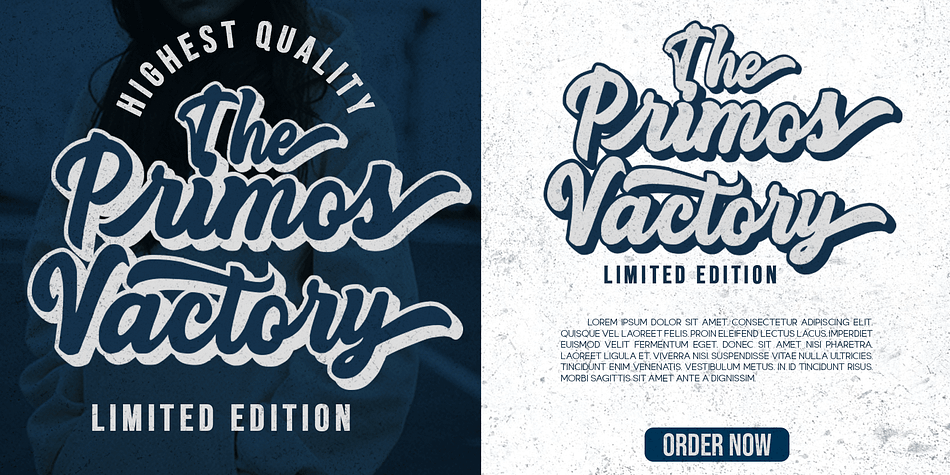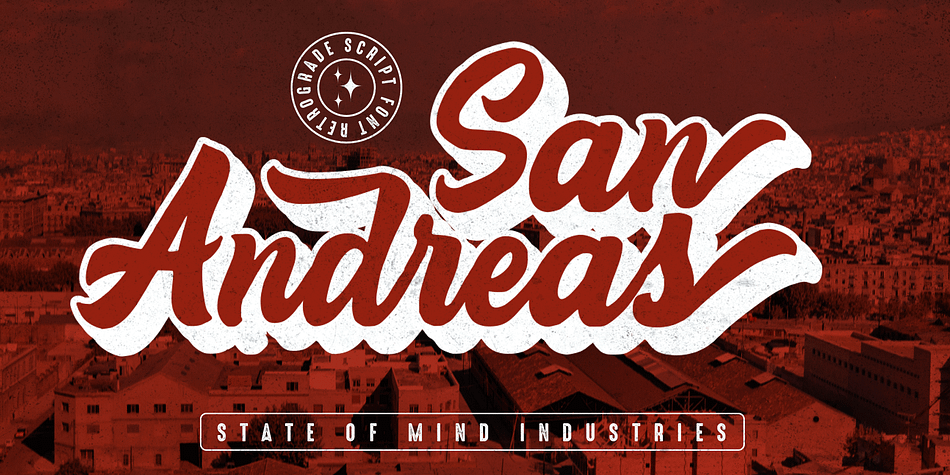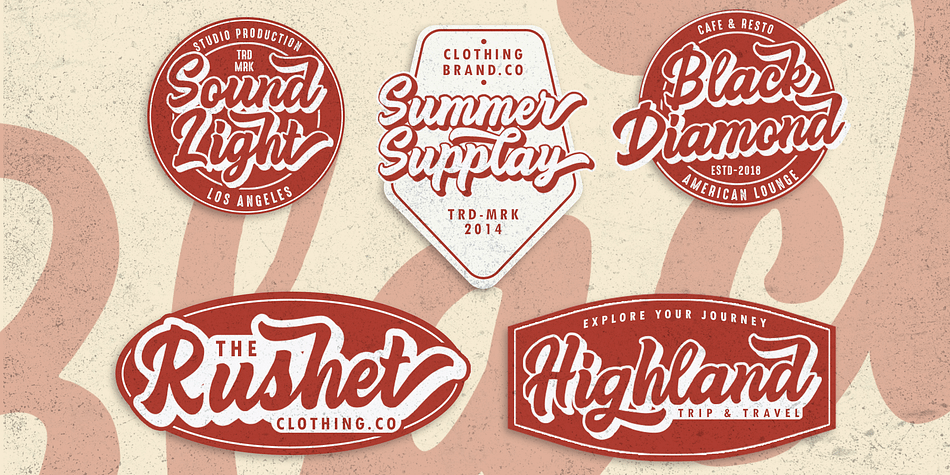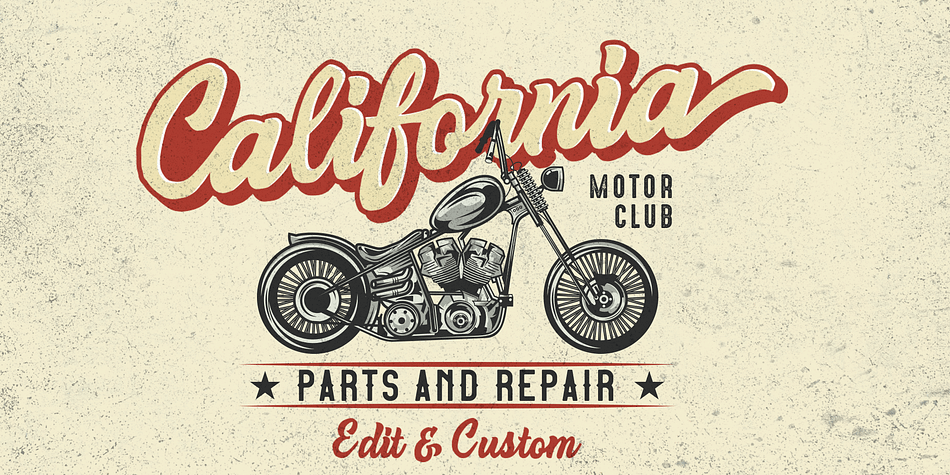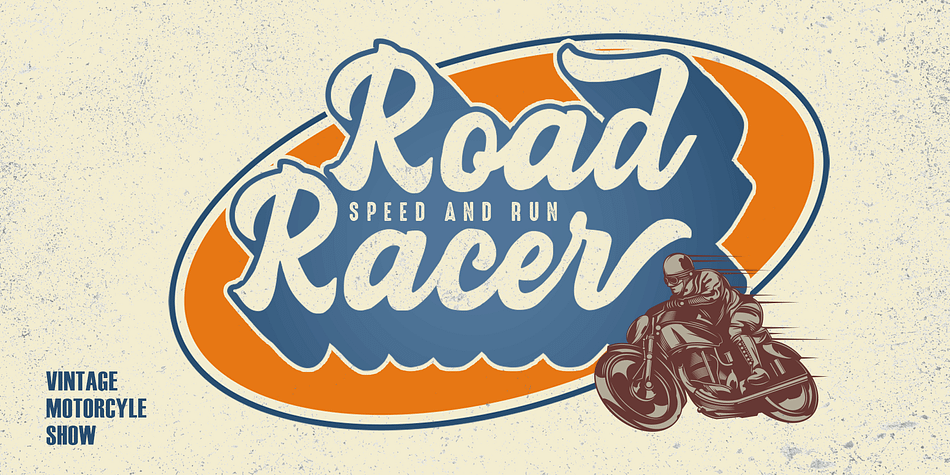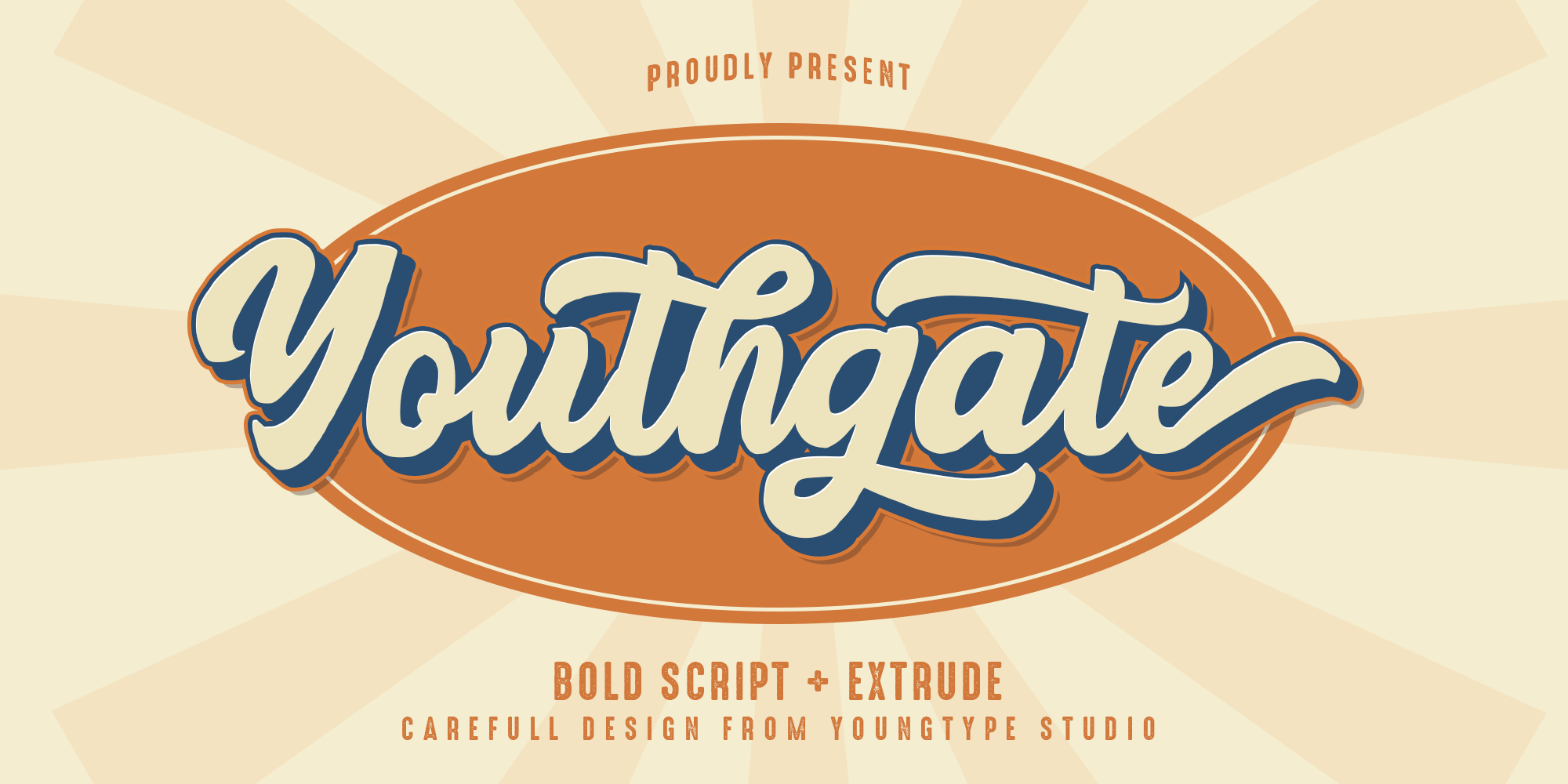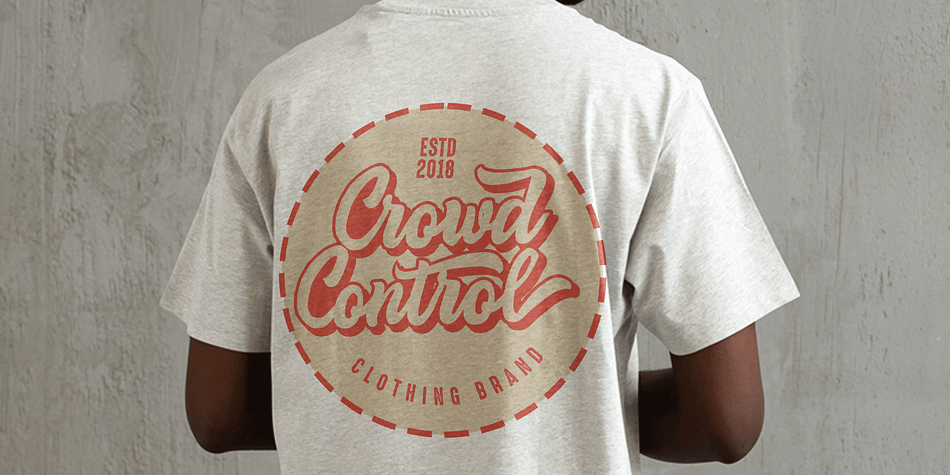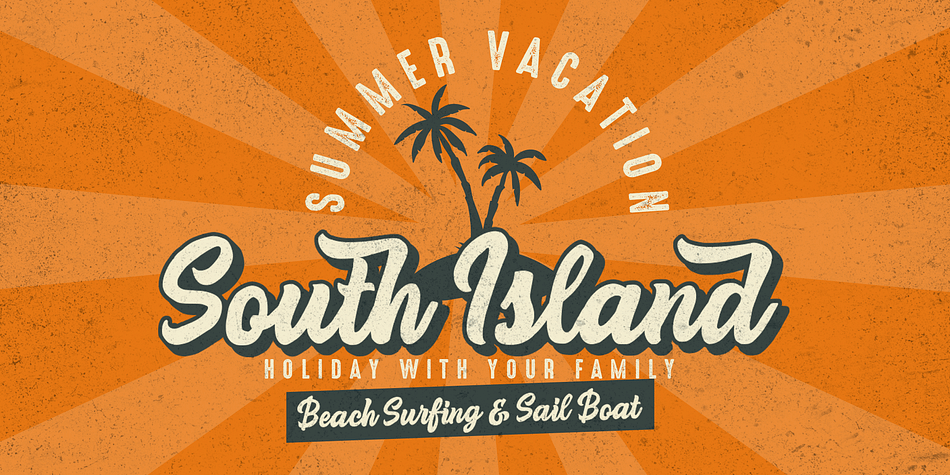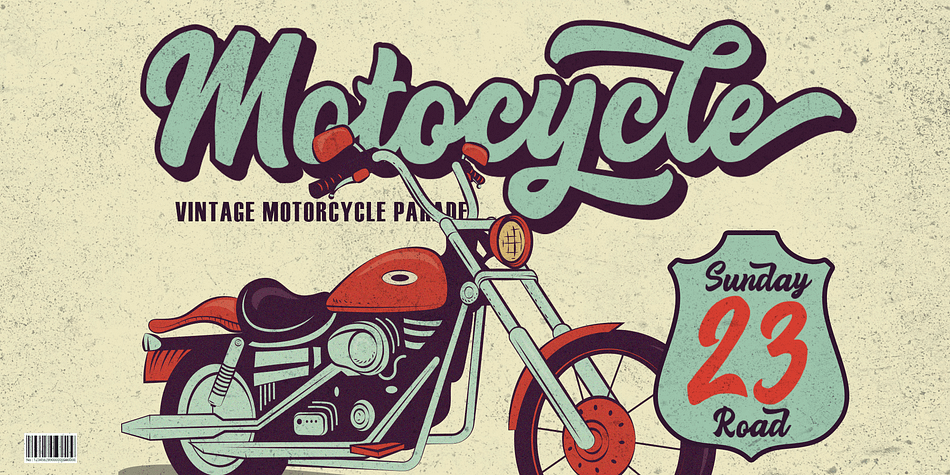
Youthgate
Youthgate is a brush script font family. This typeface has two styles and was published by Youngtype Studio.
New Youthgate Script a new curvy script typeface that is carefully crafted and balanced with personality. It also comes with an Extrude Version that makes it look Retro. You can use it as a logo, badge, emblem, packaging, headline, poster, t-shirt/clothing, greeting card, wedding invitation, etc.